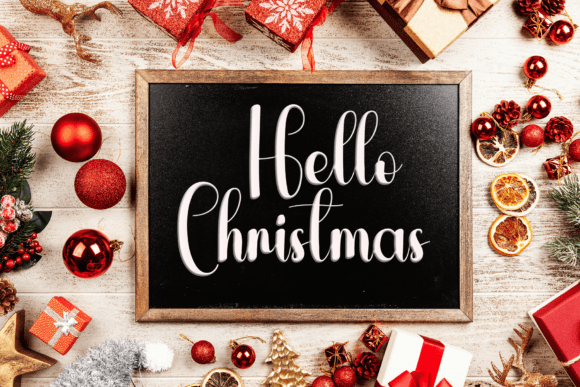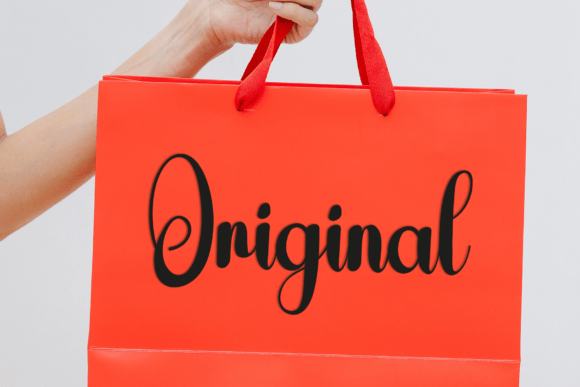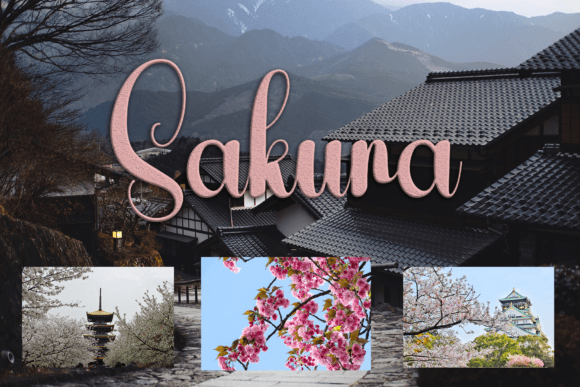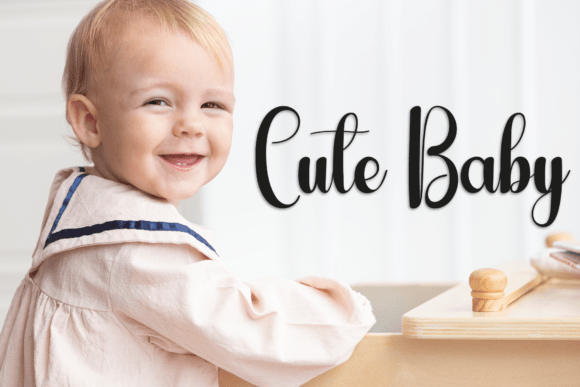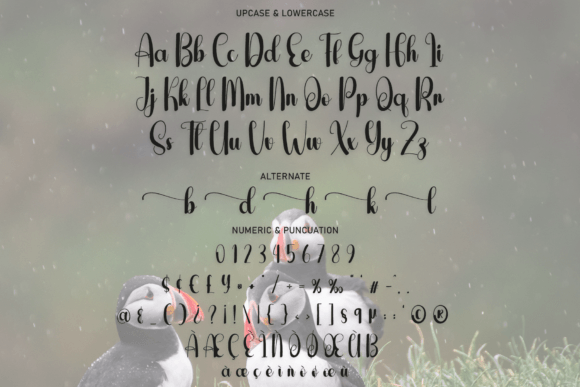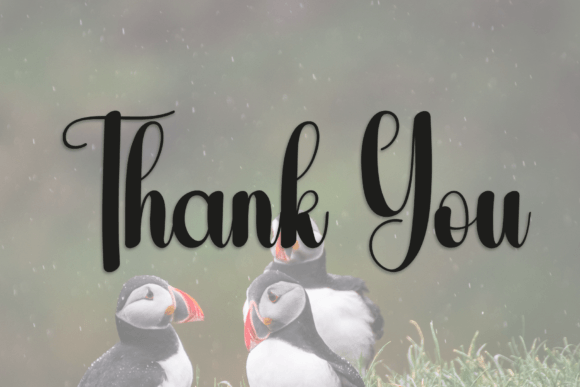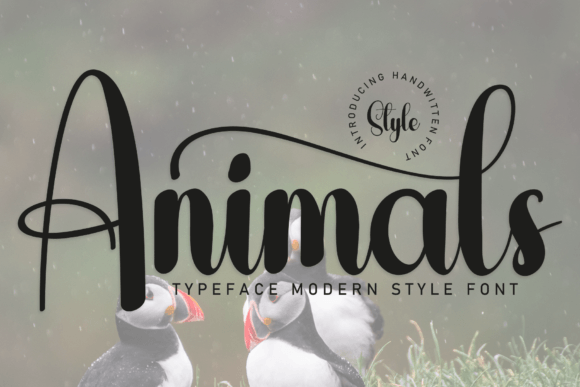
The Sweet & Friendly Animals Font: A Designer’s New Best Friend
I’ll never forget the time I was working on a wedding invitation project, and my client asked for a font that was “fun, yet elegant.” I scoured the internet, tried out dozens of fonts, but nothing seemed quite right. That was until I stumbled upon the Animals font. It was love at first sight! 💕 This sweet and friendly handwritten font has been a game-changer for my designs, and I’m excited to share it with you.
So, what makes Animals font so special? Here are a few things I adore:
• ✨ Fresh and neat: This font has a clean, modern feel that’s perfect for designs that need a bit of whimsy.
• ✅ Highly legible: Even at smaller sizes, Animals font remains clear and easy to read.
• 💕 Versatile: From wedding invitations to social media graphics, this font adapts to any design style.
Of course, no font is perfect. Here are a few quirks to keep in mind:
• 🤔 Limited character set: While Animals font has a wide range of characters, it may not have every special character or glyph you need.
• ⚠️ Not ideal for body text: While it’s legible, Animals font is best used for headings, titles, or short paragraphs. For longer texts, a serif font might be a better choice.
Exploring OpenType Features
One of the best things about Animals font is its OpenType features. With a range of glyphs, stylistic alternates, and ligatures, you can customize your text to fit your design style. Here are a few tips for getting the most out of these features:
• Use glyphs to add decorative touches to your text, like flourishes or swashes.
• Experiment with stylistic alternates to create unique and interesting text variations.
• Take advantage of ligatures to create smooth, flowing text.
The Story Behind Animals Font
Animals font was designed by a talented type designer who wanted to create a font that was both fun and elegant. Inspired by the natural world, this font is perfect for designs that need a touch of whimsy and personality. Whether you’re designing a wedding invitation or a social media graphic, Animals font is sure to delight.
Is Animals font suitable for body text? While Animals font is legible, it’s best used for headings, titles, or short paragraphs. For longer texts, a serif font might be a better choice.